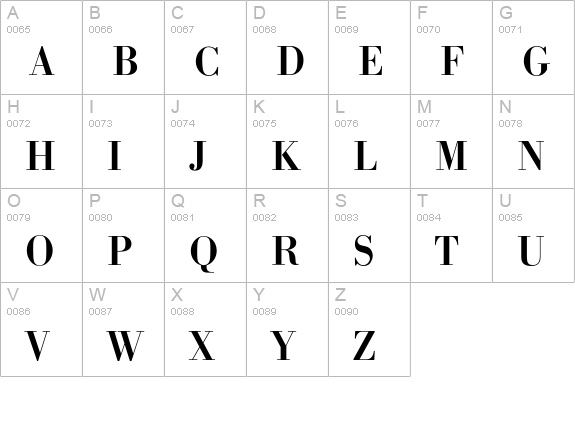
Bodoxi-Medium is a balanced, medium-weight variant in the Bodoxi typeface family \xE2\x80\x94 well suited to sub-headlines, navigation, and balanced editorial work.
Bodoxi-Medium font is a versatile and modern typeface that strikes the perfect balance between elegance and readability. With its clean lines and distinct letterforms, Bodoxi-Medium is ideal for a wide range of design projects, from branding to editorial layouts. This font exudes a sense of sophistication and professionalism, making it a popular choice among designers and creatives alike. Its medium weight adds just the right amount of emphasis without overpowering the overall design. What sets Bodoxi-Medium font apart is that it is available for free download at FontsMarket.com. This makes it accessible to all designers looking to elevate their projects with a high-quality typeface. Don't miss out on the opportunity to add Bodoxi-Medium to your font collection today!